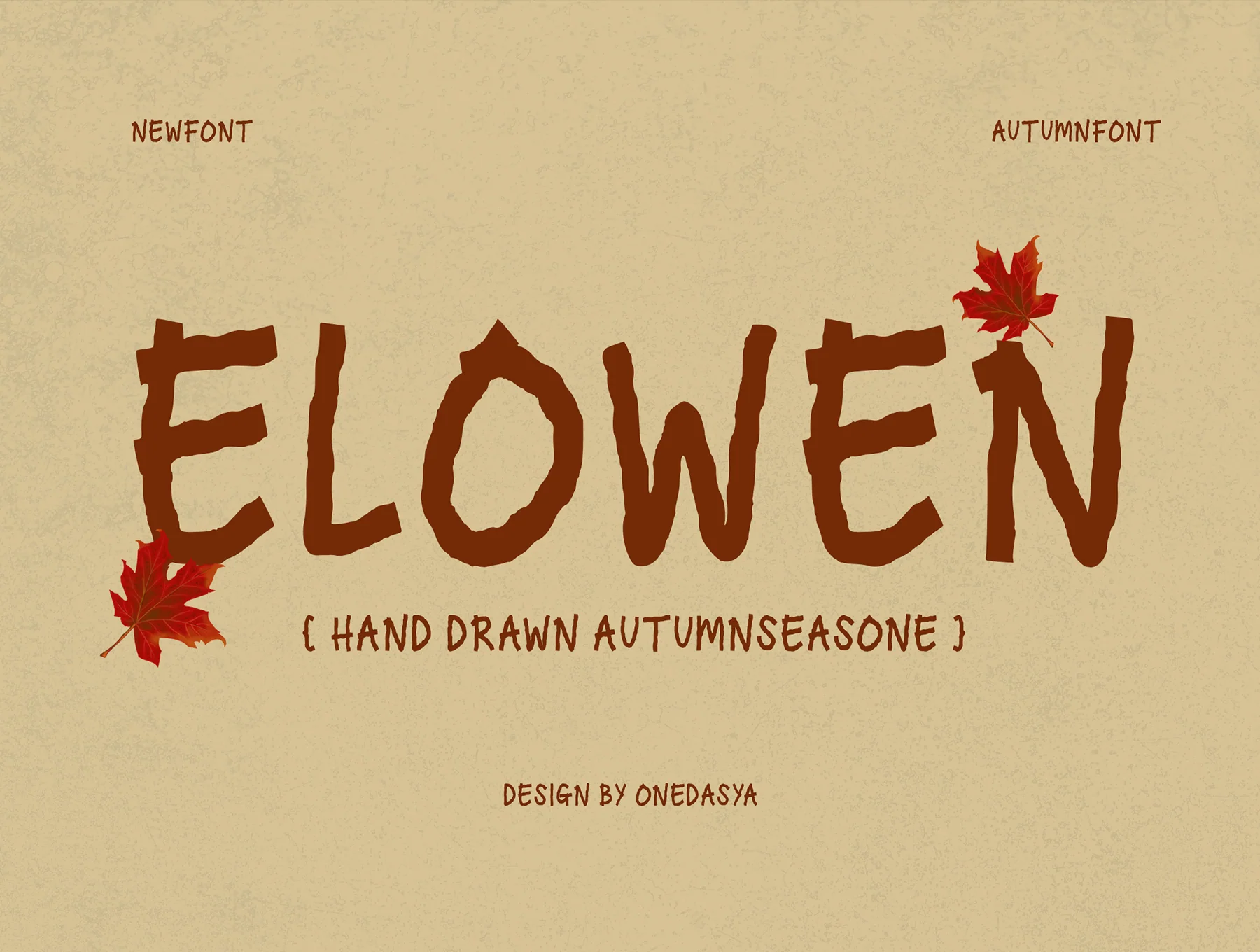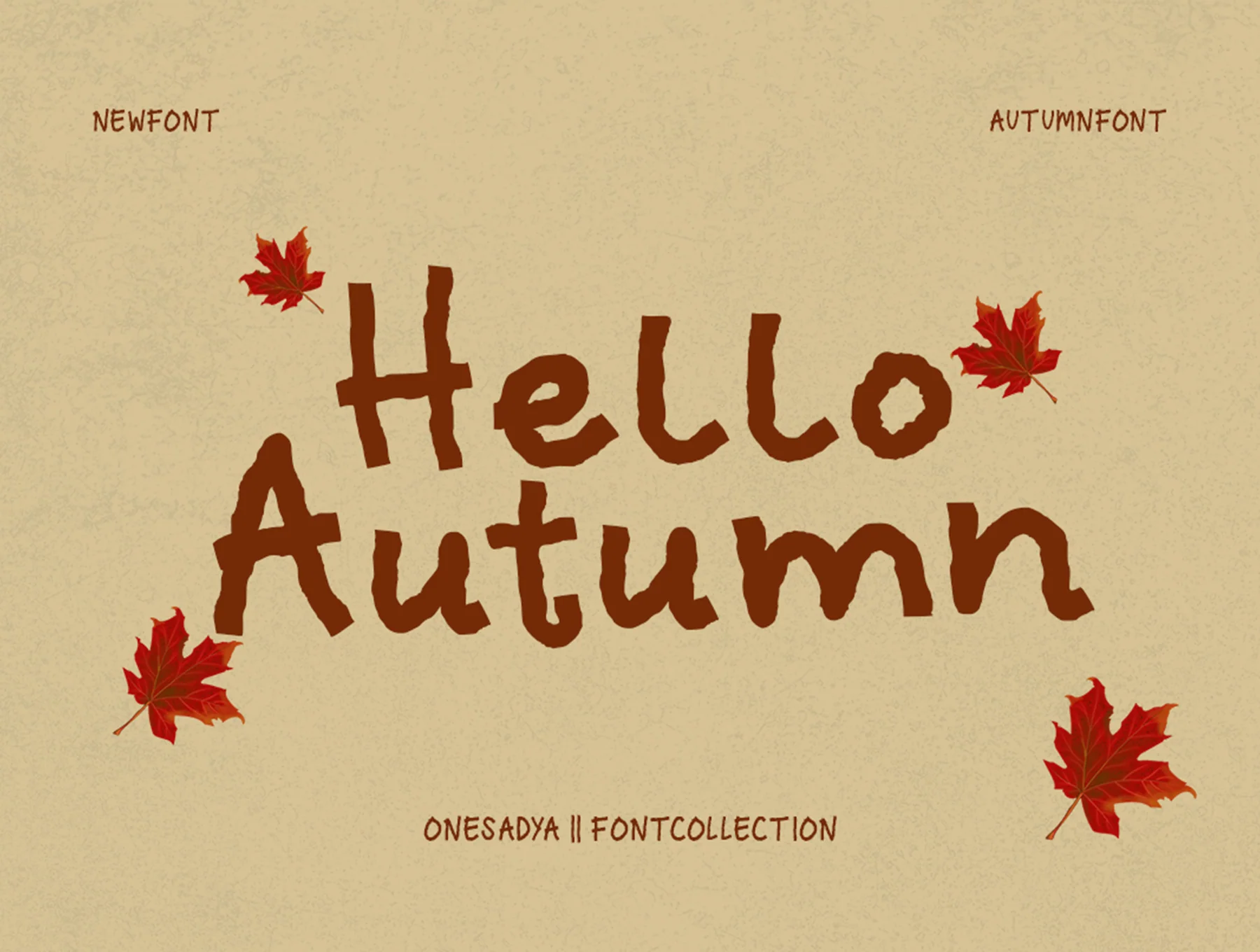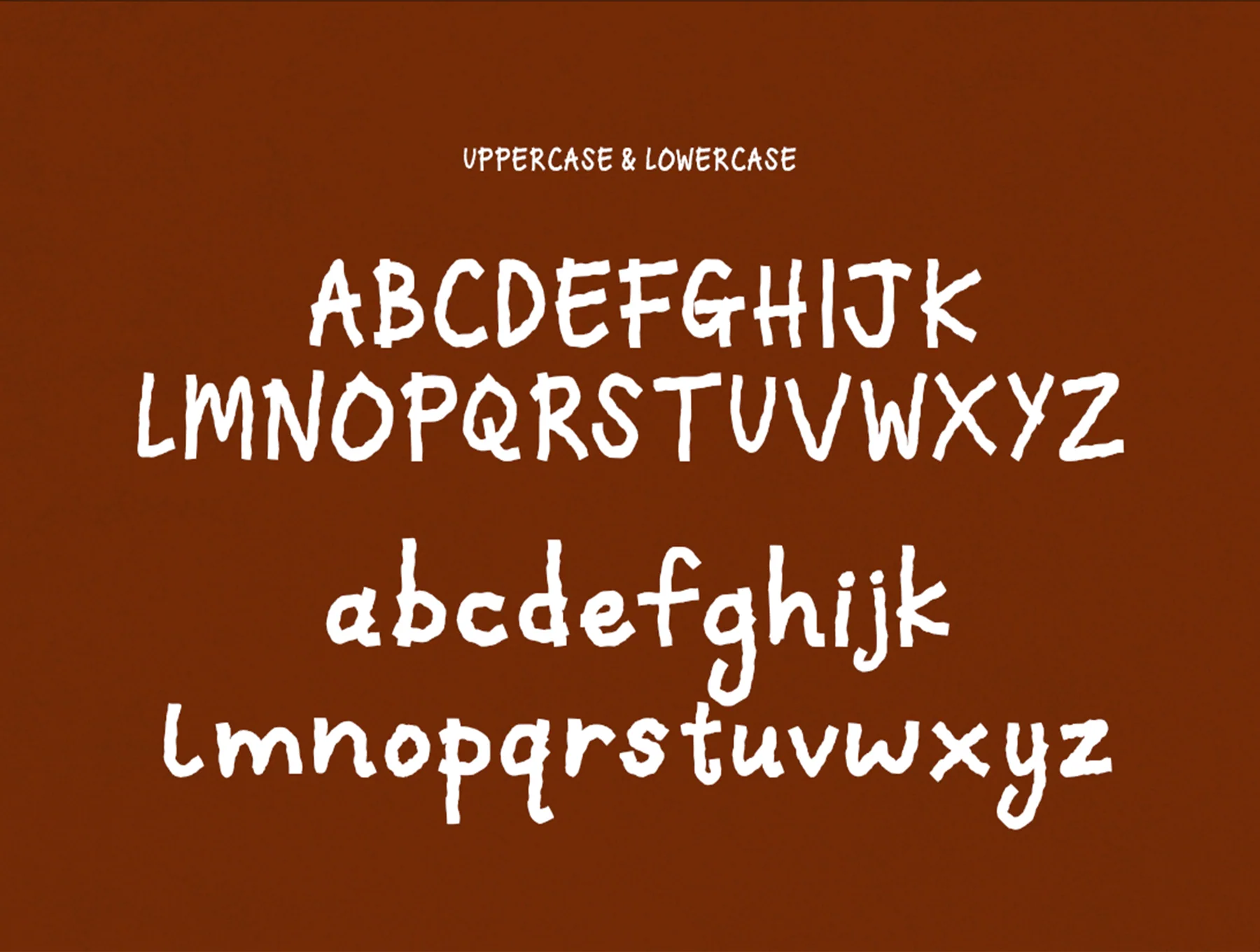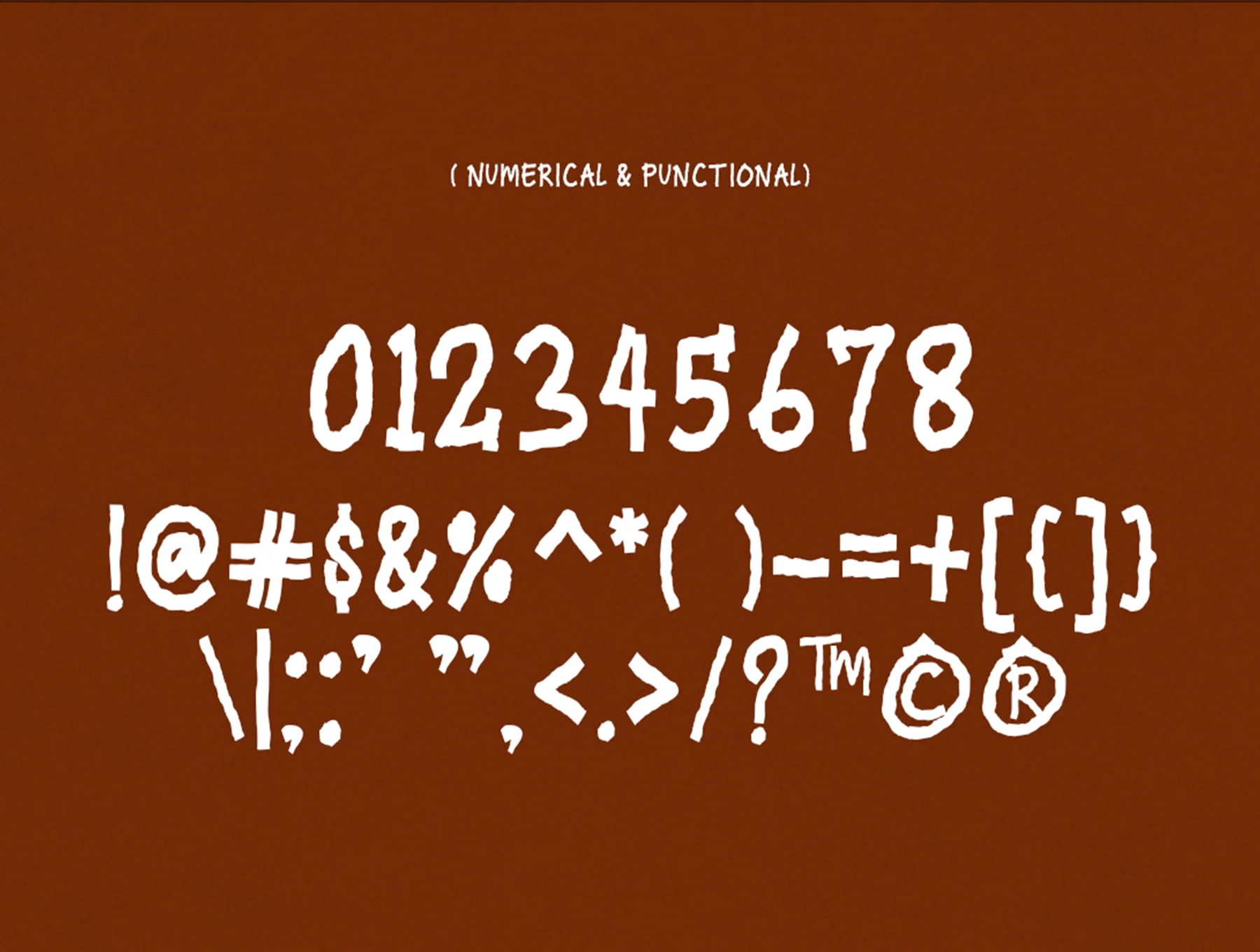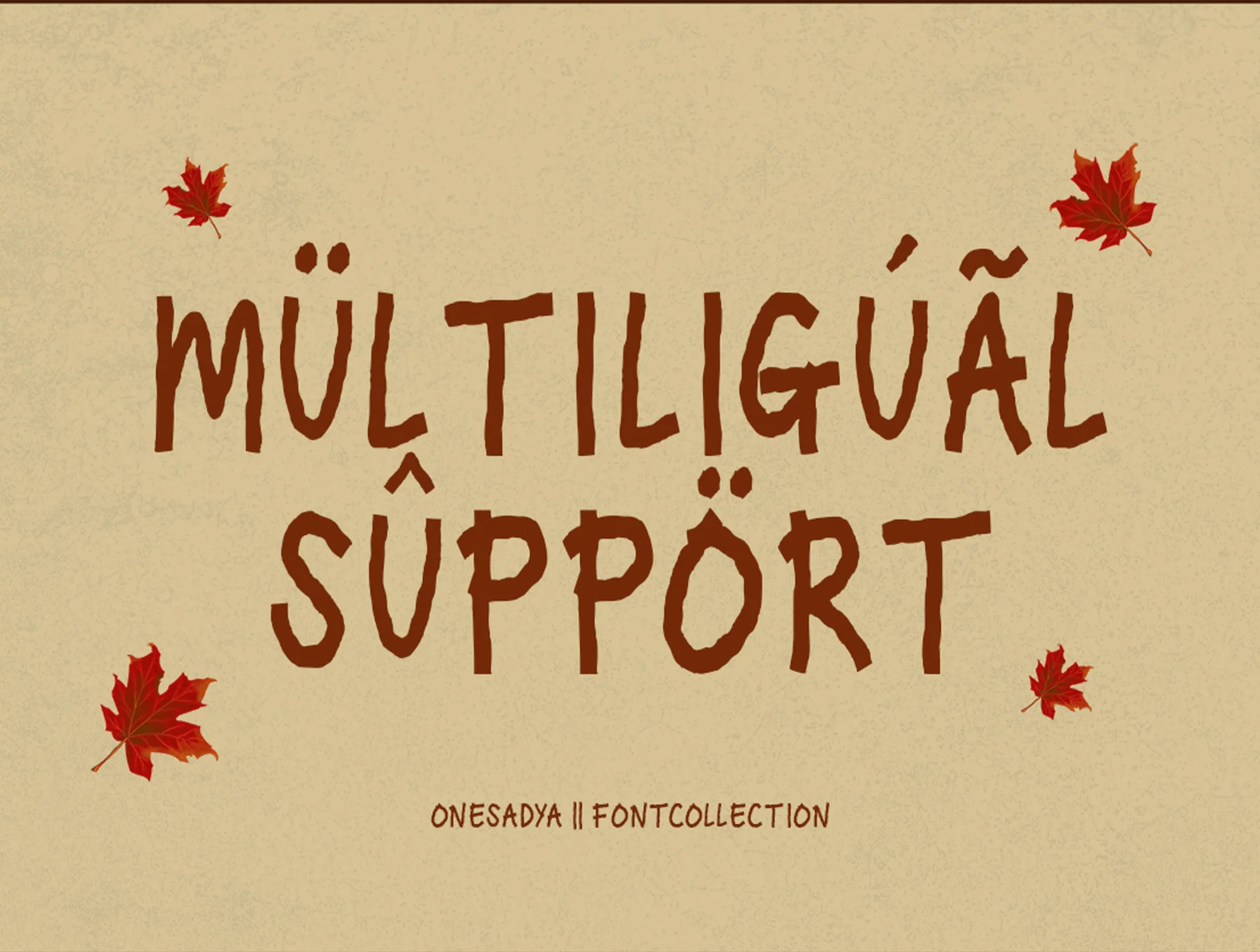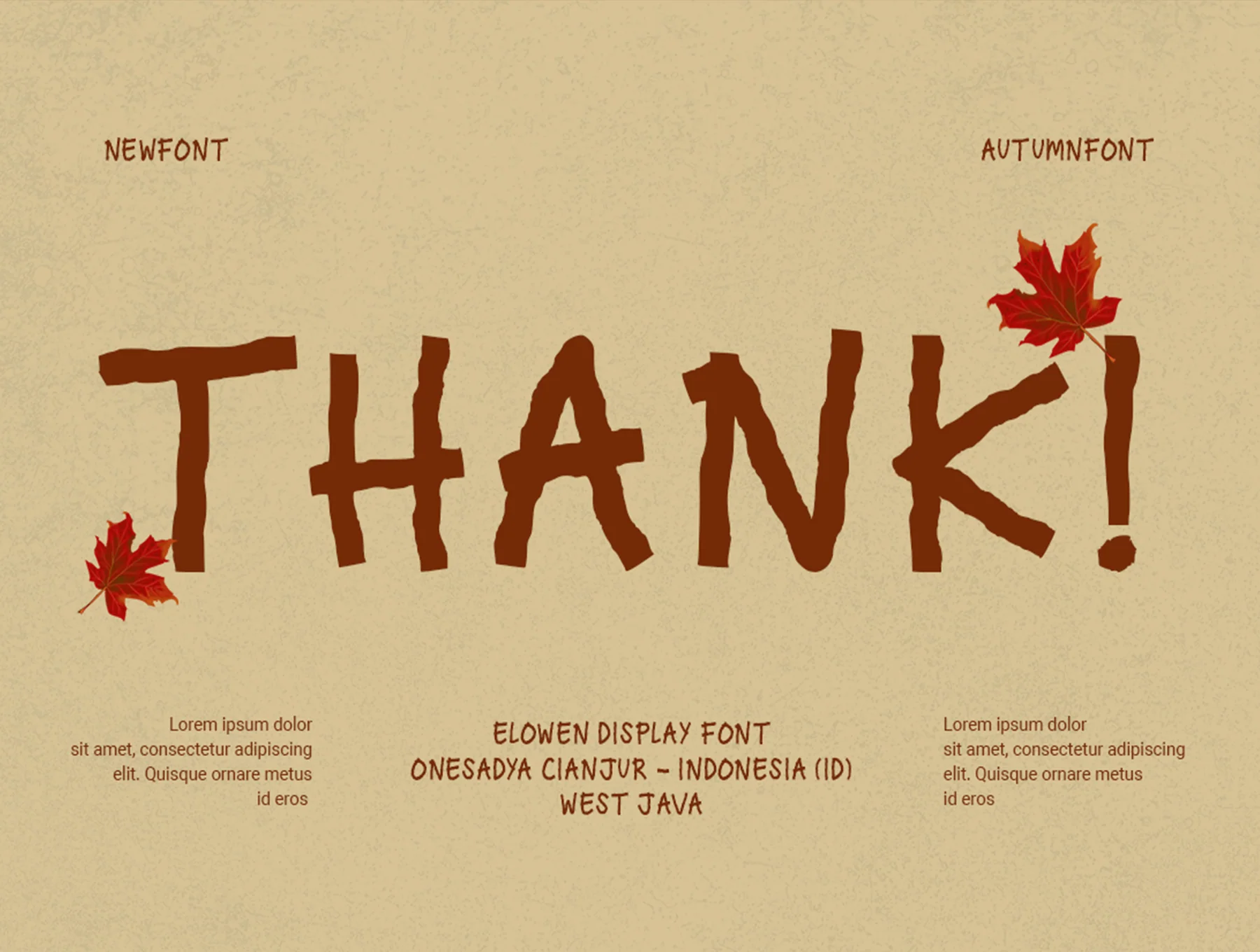
Elowen – Autumn season Display Font Typeface
This typeface feels fresh, natural, and approachable
Elowen Autumn is a cozy display typeface shaped by the feeling of fall. Its organic lines, lively personality, and graceful playful style add a seasonal, natural mood to your work. Ideal for branding, kids' designs, vine-inspired art, nature themes, packaging, fashion, posters, invites, social posts, cards, and editorials. Includes OTF, TTF, and WOFF files.